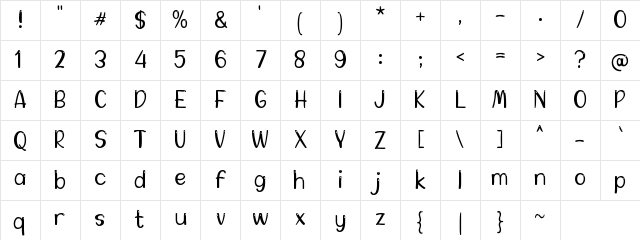
a Arbei Berry Regular Free Font
a Arbei Berry Regular
Designer: Wahyu Eka Prasetya
Design Context for a Arbei Berry
a Arbei Berry is a composed and adaptable typeface that performs quietly and consistently across a wide range of design contexts.